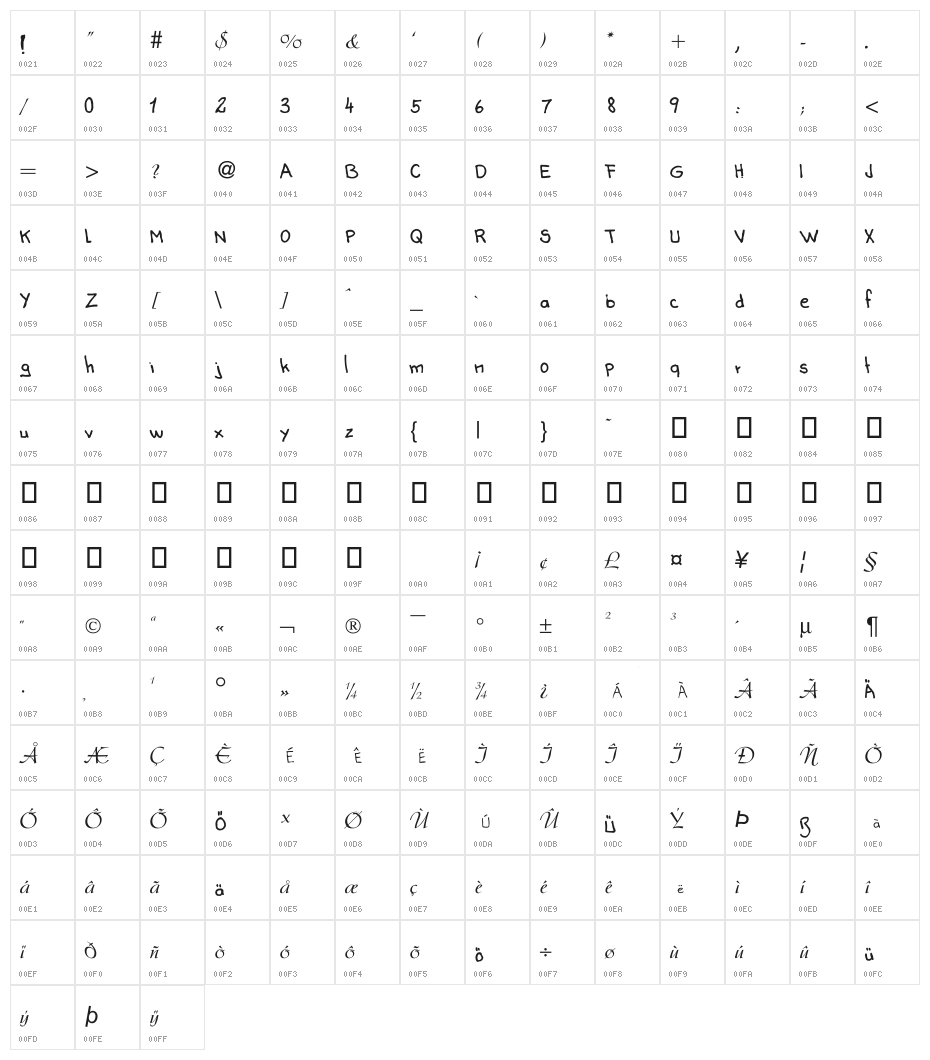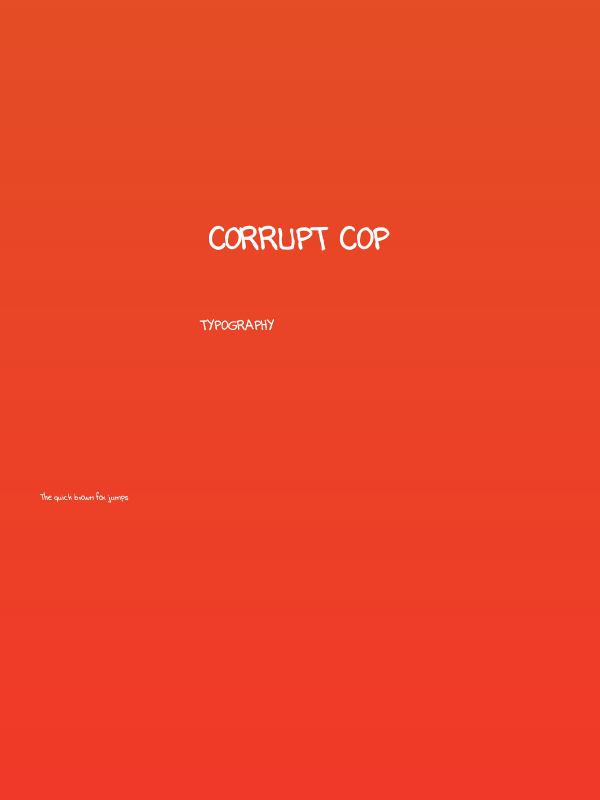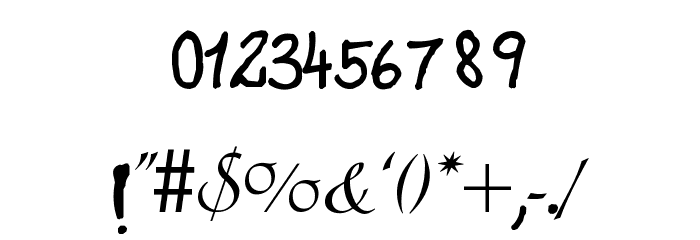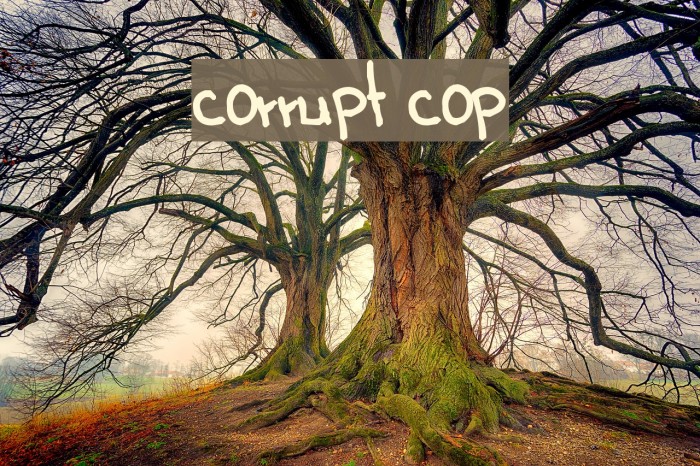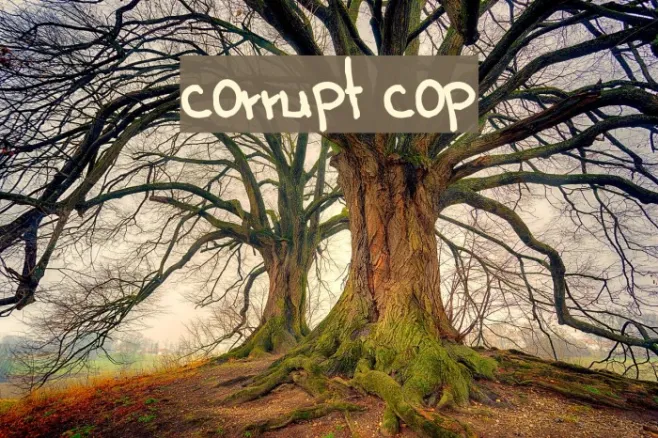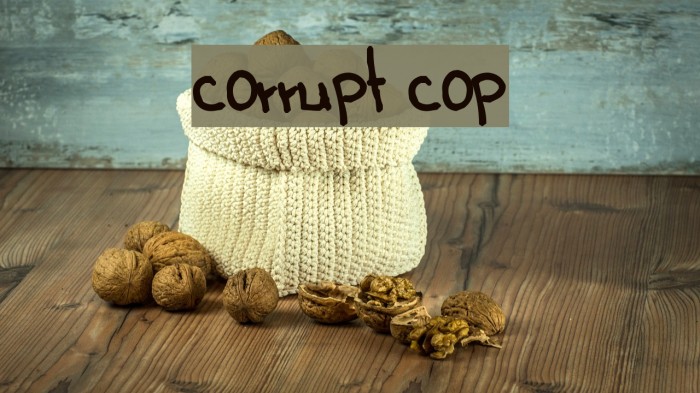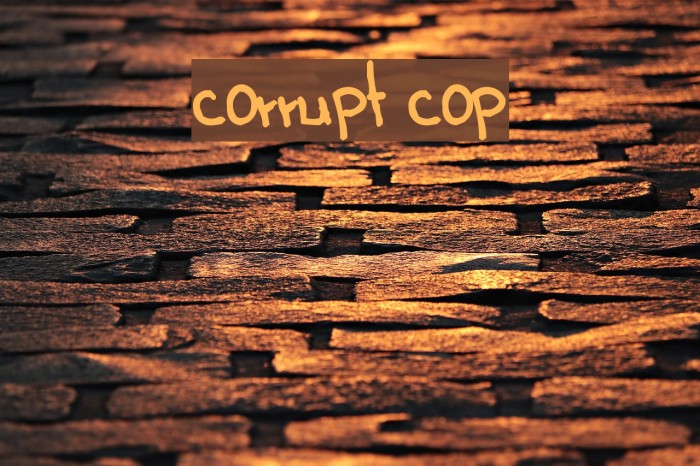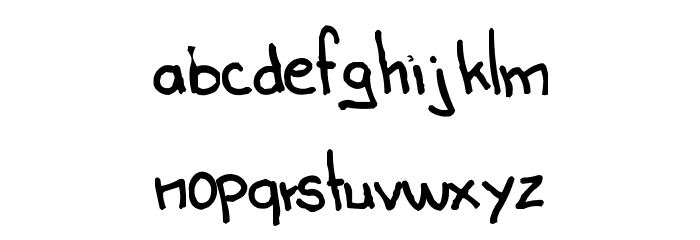
corrupt cop Font
This font exudes a playful and informal vibe with its hand-drawn, slightly irregular letterforms. The characters have a casual, almost whimsical appearance, making them ideal for projects that require a personal touch. The uppercase and lowercase letters maintain a consistent style, with rounded edges and a slight slant that adds to the font's approachable nature. The numerals and special characters are crafted with the same attention to detail, ensuring a cohesive look across all text elements. The overall design is reminiscent of handwriting, offering a sense of authenticity and warmth.
| Proposed Projects | Ideal for children's books, greeting cards, casual branding, and playful social media graphics. |